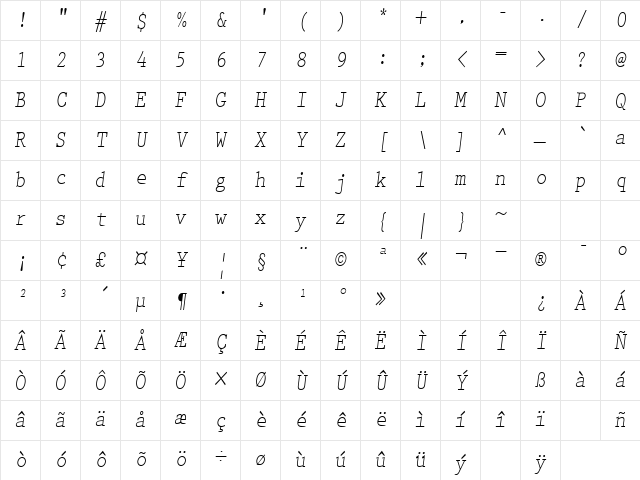
Complete PrestigeCond Oblique glyph index. Displaying only characters natively supported by PrestigeCond Oblique font.
PrestigeCond is a composed and adaptable typeface that performs quietly and consistently across a wide range of design contexts. The slanted form adds forward momentum and visual energy. Its narrow stance lets it pack a punch even in space-constrained designs.